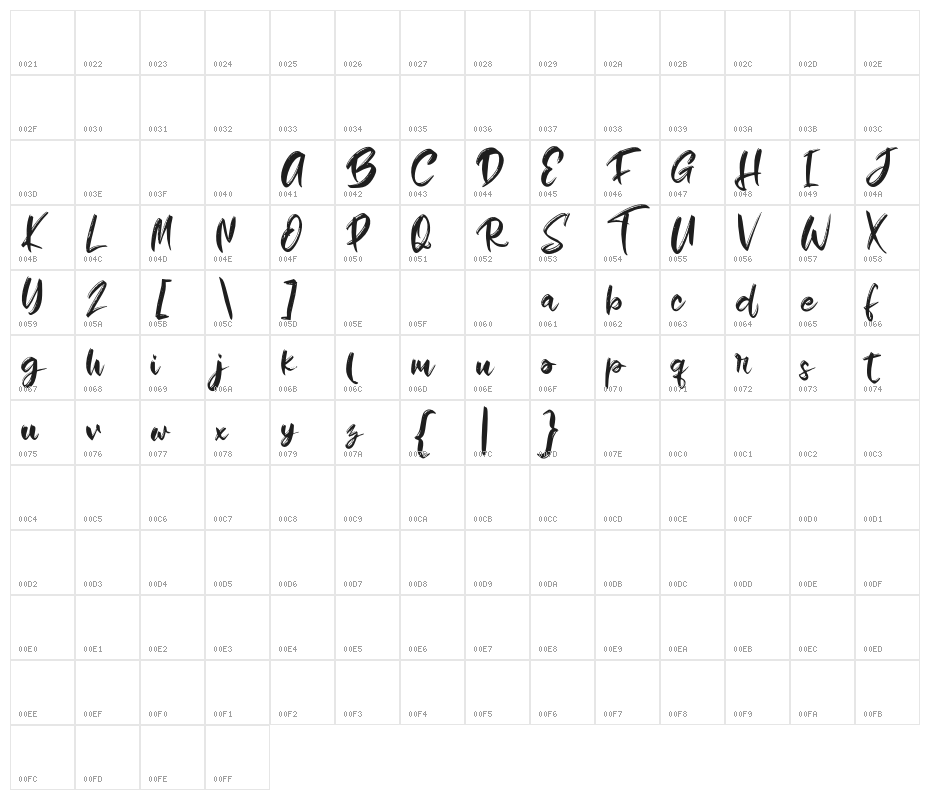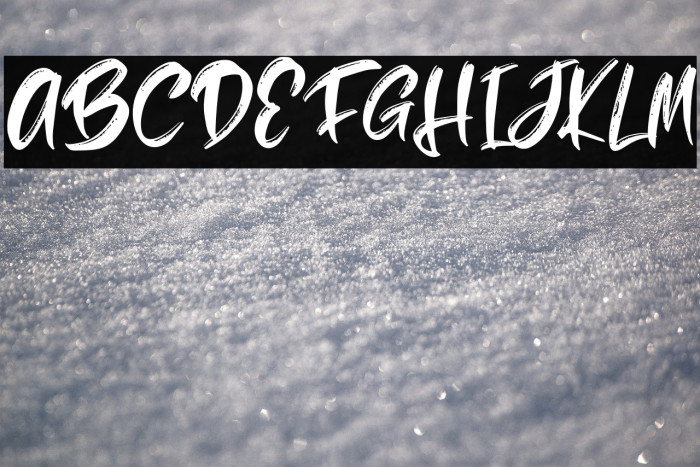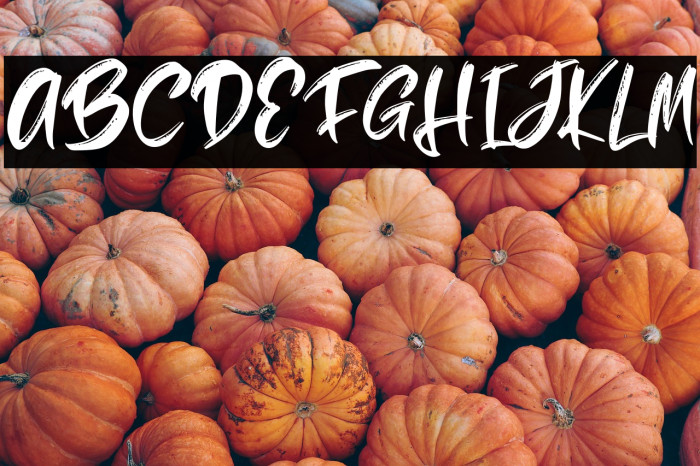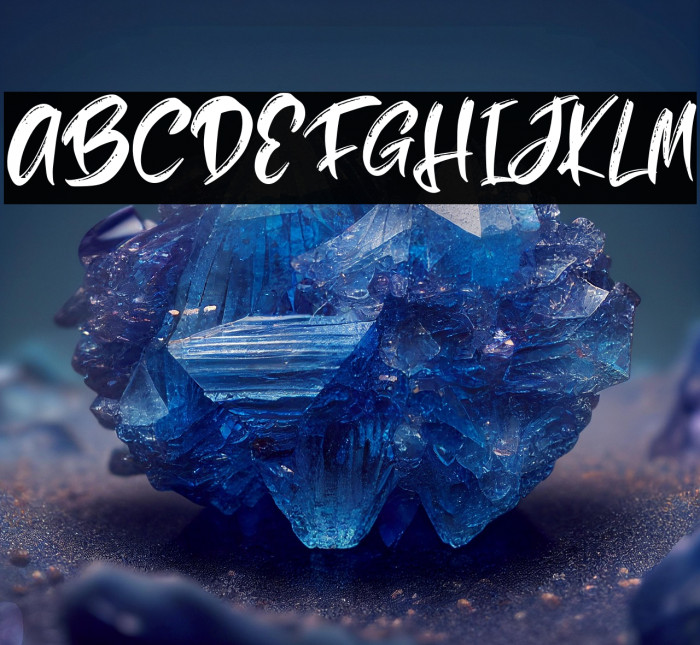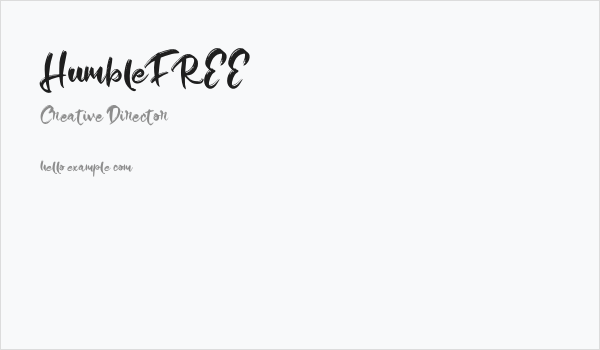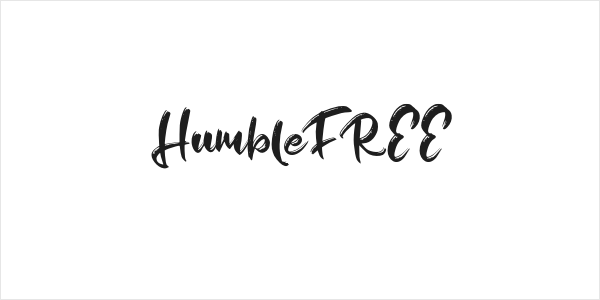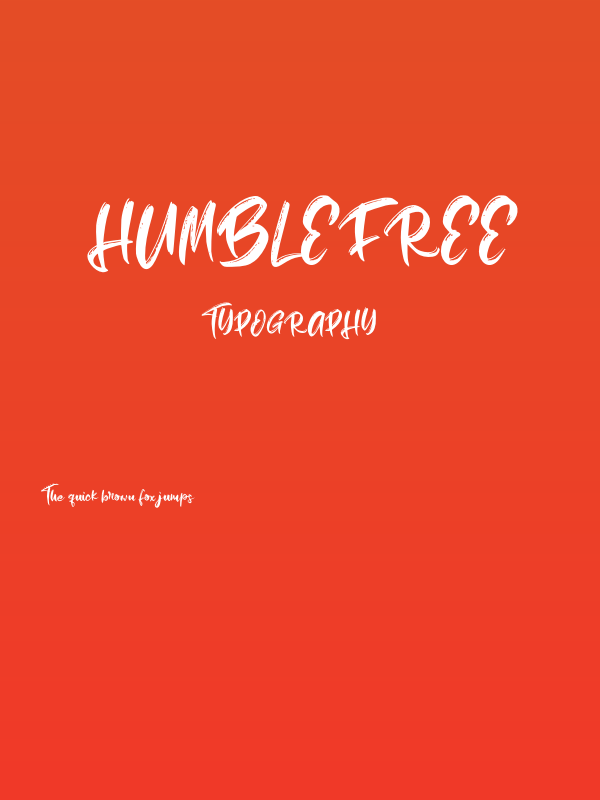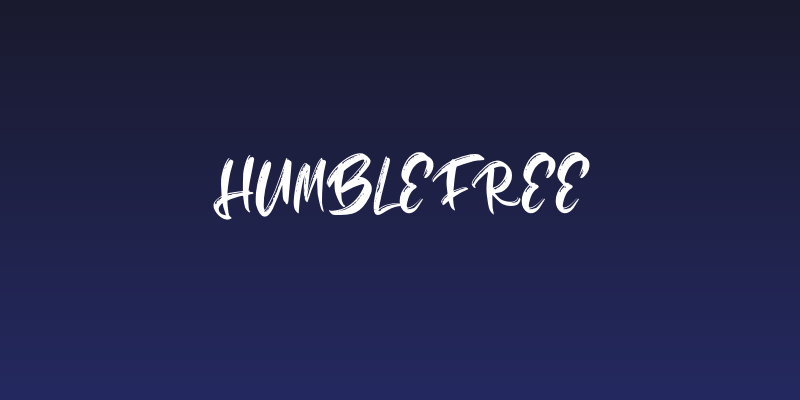
HumbleFREE Font
HumbleFREE Description
This font features a bold, expressive script style with a hand-drawn appearance. The letters are characterized by their fluid, sweeping strokes and dynamic movement, giving a sense of energy and spontaneity. The uppercase letters are particularly striking, with dramatic flourishes and varying stroke widths that add to the overall artistic feel. The lowercase letters maintain a cohesive flow, complementing the uppercase with their own unique flair. This font is ideal for projects that require a personal, creative touch, such as invitations, posters, or branding materials. Its artistic nature makes it stand out, while the legibility remains intact despite the decorative elements.
| Proposed Projects | Ideal for invitations, posters, branding, and creative projects requiring a personal touch. |